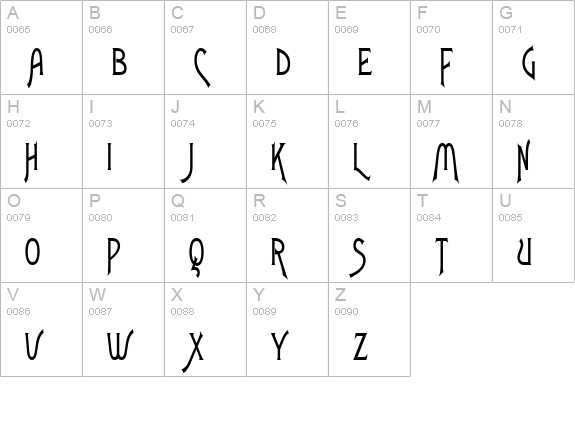
Fletch Thin Bold is a delicate, low-contrast variant in the Fletch typeface family \xE2\x80\x94 well suited to fashion editorial, minimal branding, and high-contrast display.
Fletch Thin Bold is a modern and stylish font that exudes confidence and sophistication. Its sleek and clean lines make it perfect for a wide range of design projects, from branding to editorial design. The bold weight of this font commands attention and adds a touch of boldness to any design. What sets Fletch Thin Bold apart is not only its striking appearance but also the fact that it is available for free download at FontsMarket.com. This makes it accessible to designers and creatives looking to add a touch of elegance to their projects without breaking the bank. Whether you're working on a logo, poster, or website, Fletch Thin Bold is sure to make a statement and elevate your design to the next level.